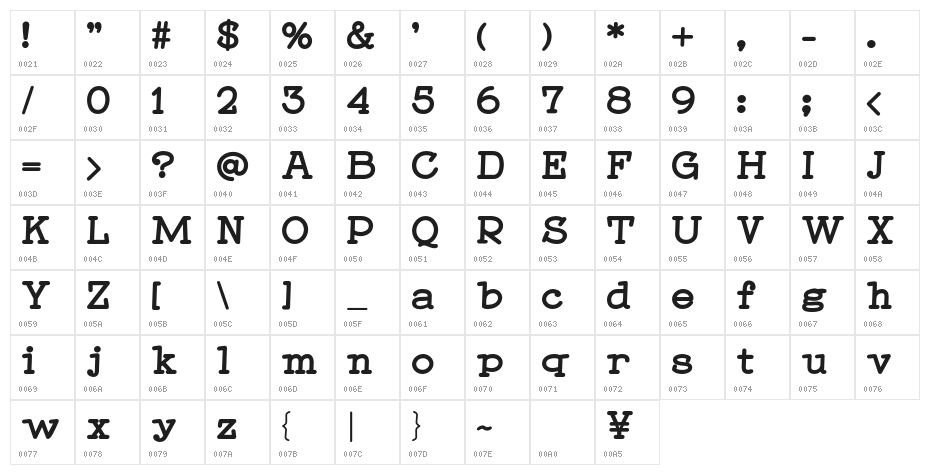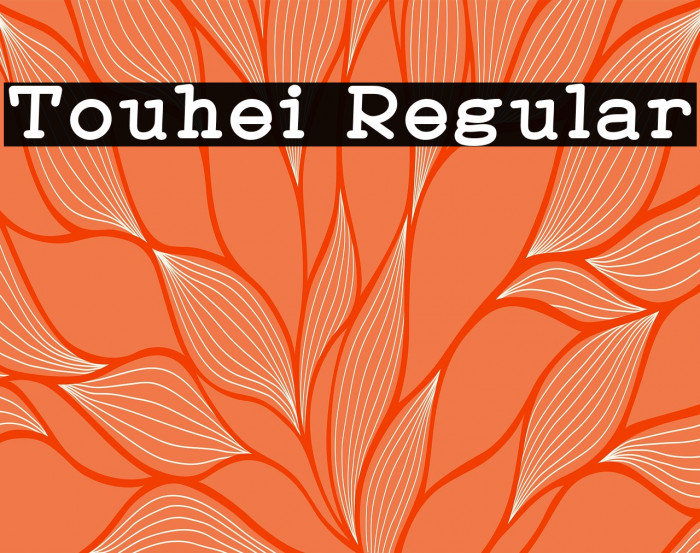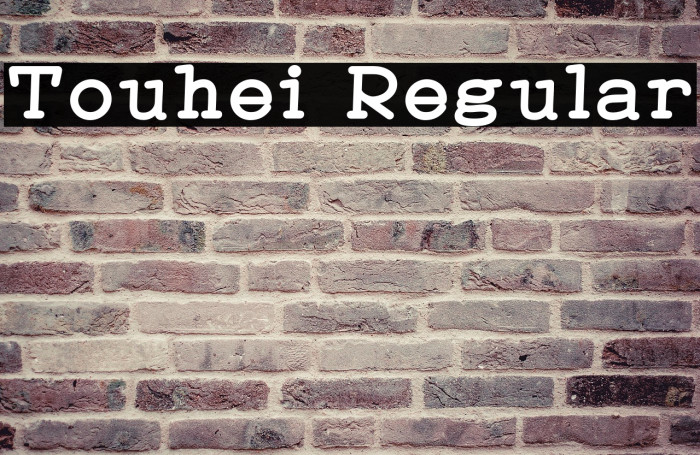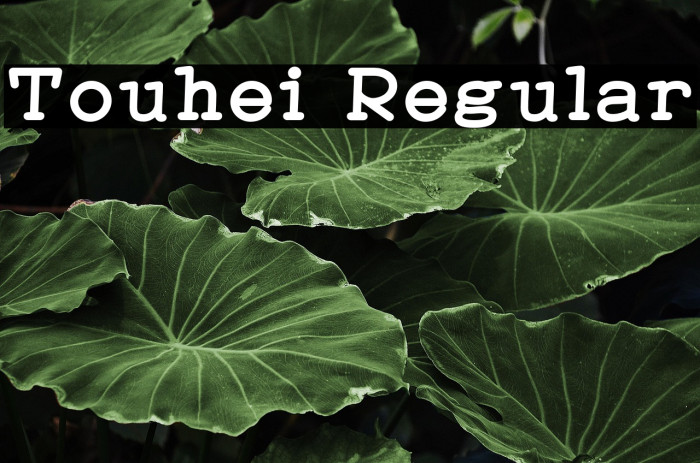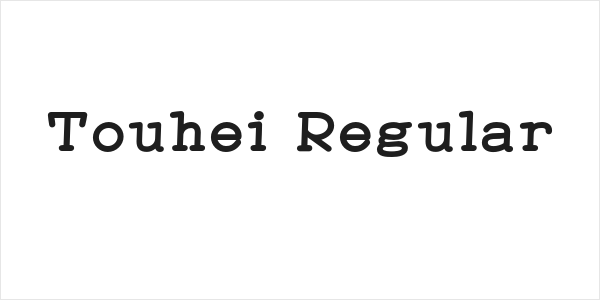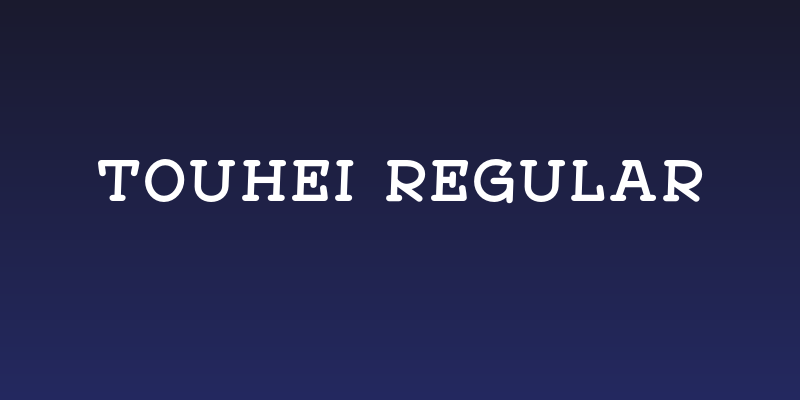
Touhei Regular Font
Touhei Regular Description
This font features a bold and rounded style, characterized by its slab serif design. The letters have a strong presence with thick strokes and rounded edges, giving it a friendly yet robust appearance. The uppercase and lowercase letters maintain consistent proportions, while the numerals are clear and easy to read. Special characters are well-defined, adding to the font's versatility. The overall look is modern with a touch of vintage charm, making it suitable for a variety of design projects.
| Overall Style | Modern, Vintage |
| Proposed Projects | Ideal for branding, headlines, posters, and packaging design where a strong and approachable typeface is desired. |